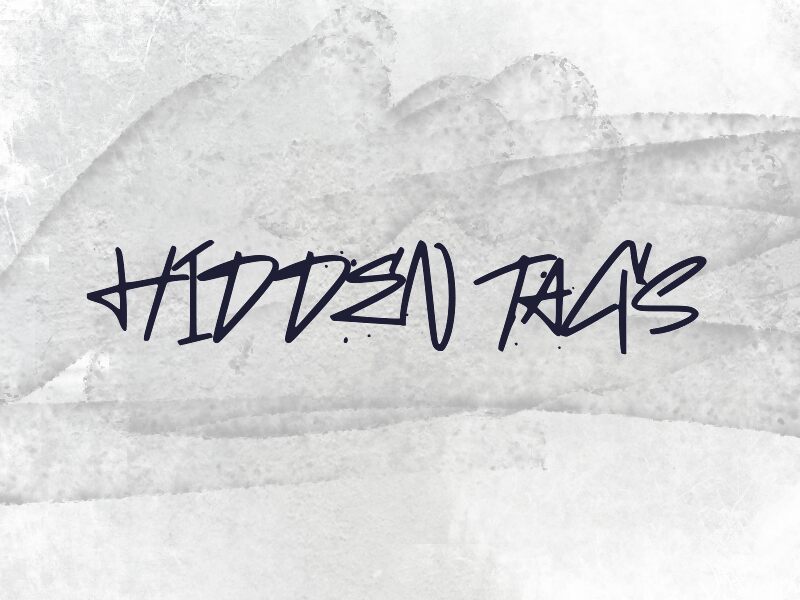
HIDDEN TAGS
Hidden Tags font by wep is a graffiti free font characterized by its casual, spontaneous, and expressive vibe. Its lightweight letters stretch vertically and show a few imperfections that resemble sprayed letters on building walls. The legible design also showcases a consistent position between similar elements.